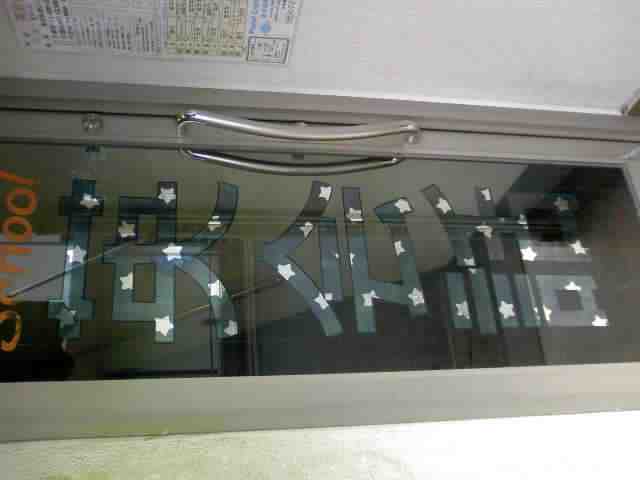
star spangled sign
I am planning to gild a glass door with the pattern of the blue part of the US flag. The sign will be 3 big Japanese characters, not letters, lined up vertically. Nice fat lines.
I plan to water gild with blue colored pure silver then cut out the stars and guild plain silver over the cut outs. Afterwards back up and continue as usual.
Any better ideas, warnings, advice?
Re: star spangled sign
I am lost on blue colored pure silver? I am not following cutting out the stars either.
Re: star spangled sign
BLUE SILVER: The blue silver leaf is silver leaf that has been heated so it turns blue. I bought it here in Japan. I am attaching a picture of it.
CUT OUT STARS: After water-gilding the glass with blue leaf, before backing up, I plan to use a razor and stencil to cut star shapes out of the blue leaf. Then rub the middle of the stars off of the glass with a stick. Next gild plain silver over the cut out star shapes. Finally, back up and continue as usual.
I reconed, since you can fill in holidays and missed spots with a second gild, I should be able to fill in deliberately cut out shapes in the same way...
But, for the application, Is my idea the best way? Should I back up the blue first then cut the stars? Should I apply the stars first then the blue(this seems impossible unless I use size).
Any ideas appreciated...
- "jewel beetle" colored leaf
Re: star spangled sign
The blue silver looks quite interesting...and if I understand, I hear....... 1/ water gild the bright lines of blue and then 2/an oil gild of same. IF that's the case there is no need to cut out the star shapes. Just burnish, back-up and get paid ;=/
Re: star spangled sign
I think I would use a more conventional method. Water gild the silver, back up the stars and clean up. This could also be backed up with screen printing for line quality. Then water gild the remaining blue leaf and backup the total area. Scratching out the stars would give you an iffy line quality at best. You could not surface gild silver as the oils and varnish will tarnish silver. One caution would be that the blue leaf may be more brittle due to the heat treatment. While I am aware of the colored leaf, I have not worked with it before. Most of the colored leaf I have received as samples has been composition, not silver. I wonder if the blue heat treatment would minimize future tarnish?
Re: star spangled sign
Kent and David, Have done the oil gild quite a number of times with silver or more usually white gold(which has a high silver content)and never had a tarnishing issue. Wether this has more to do with the size used (usually 1-shot) or circumstances I can't be sure. Those being the gold content of the white gold rather than pure silver. I guess we are getting into much bigger issues. Having said that silver with a standard gild without an acrylic top coat has given me problems but that was never on glass.
Re: star spangled sign
Doug, could you explain a little more... Use surface size for the stars??? I wanted a better mirror like finish than size can give. I probly missed your point completely...
Kent, the blue silver IS very brittle. I double triple checked that it is real silver tho. I was hoping the brittleness would make for a cleaner cut line. But I think I am going to go with your suggestion an back up the white silver stars first tho.
I'm goin ta call it finished... It is not up to the standards of the Letter Heads but I have learned a lot! I notice more people turning their heads to look at it since doing the stippled silver. It kind of glows
Re: star spangled sign
Now I understand the stars and the outline does help make it pop. Don't know what it says but it looks more legible.